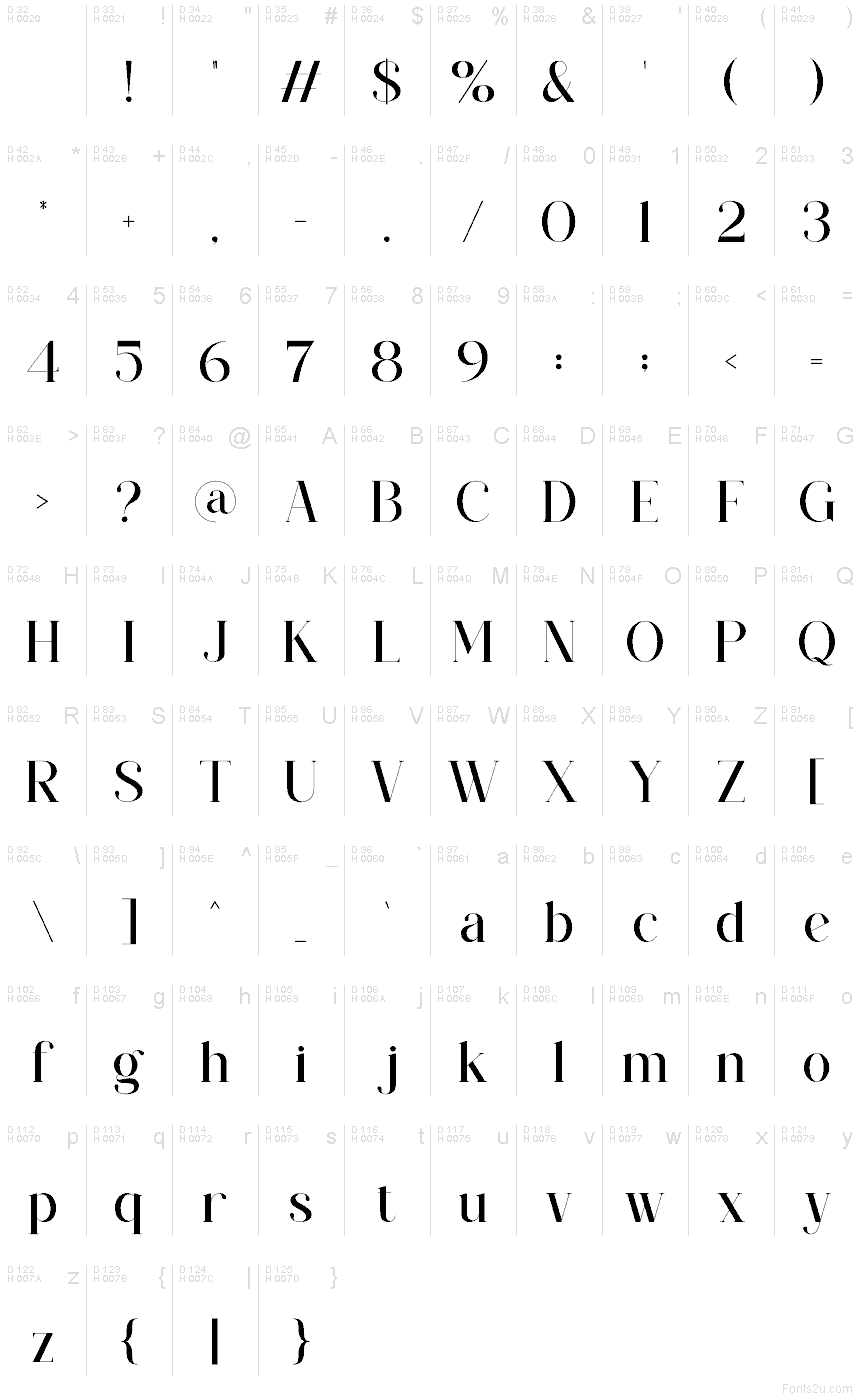
Ralist
Ralist font by SlideShoot is a free high-contrast serif font. It lands with inky strokes and razor-fine hairlines, carving dramatic shapes that feel both fashion-forward and timeless. The crisp, sculpted serifs and tight rhythm deliver instant editorial polish, the kind that turns a single word into a statement.
Using Ralist, headlines snap into focus and brand marks gain a luxe shimmer. This free font shines on magazine covers, fashion branding, beauty packaging, posters, lookbooks, and social promos. Set it large to let the thin details breathe, and pair with a plain, modern sans to keep the spotlight on Ralist’s glamorous contours.